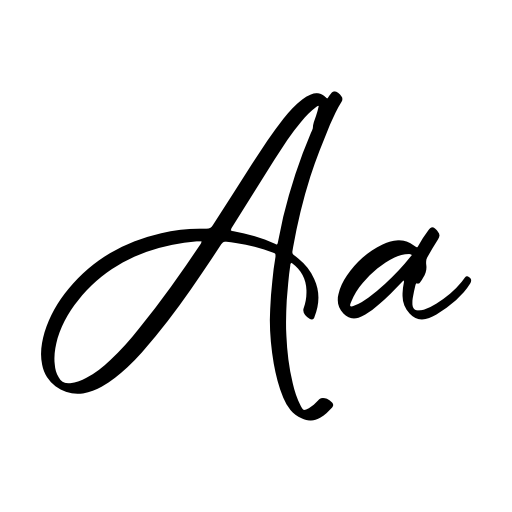
Black Pen Script Demo
Black Pen Script Demo is a font that is very fresh and unique style handmade + bonus font, Night in Kansas for your project. Black Pen script is perfectly suited to logo, stationery, poster, apparel, branding, wedding invitation, card, tagline, layout design, and much more!!